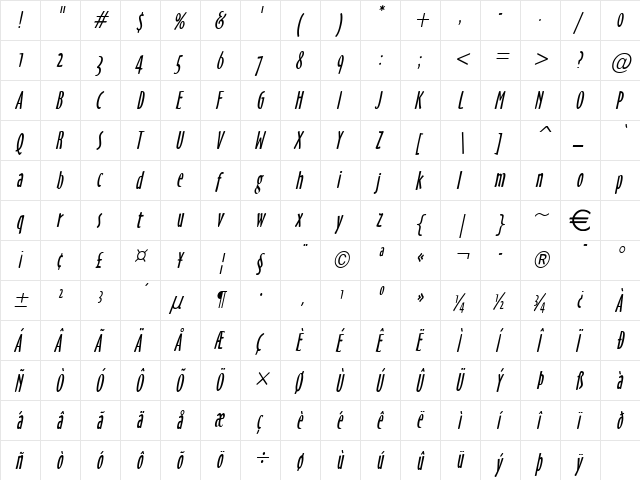
HobbyCondensed Italic
Design Context for HobbyCondensed Typeface
HobbyCondensed is a composed and adaptable typeface that performs quietly and consistently across a wide range of design contexts. The slanted form adds forward momentum and visual energy. Its narrow stance lets it pack a punch even in space-constrained designs.
Pro Tip: Use HobbyCondensed for emphasis, pull quotes, and subheadings where its slanted energy can add rhythm to the layout.